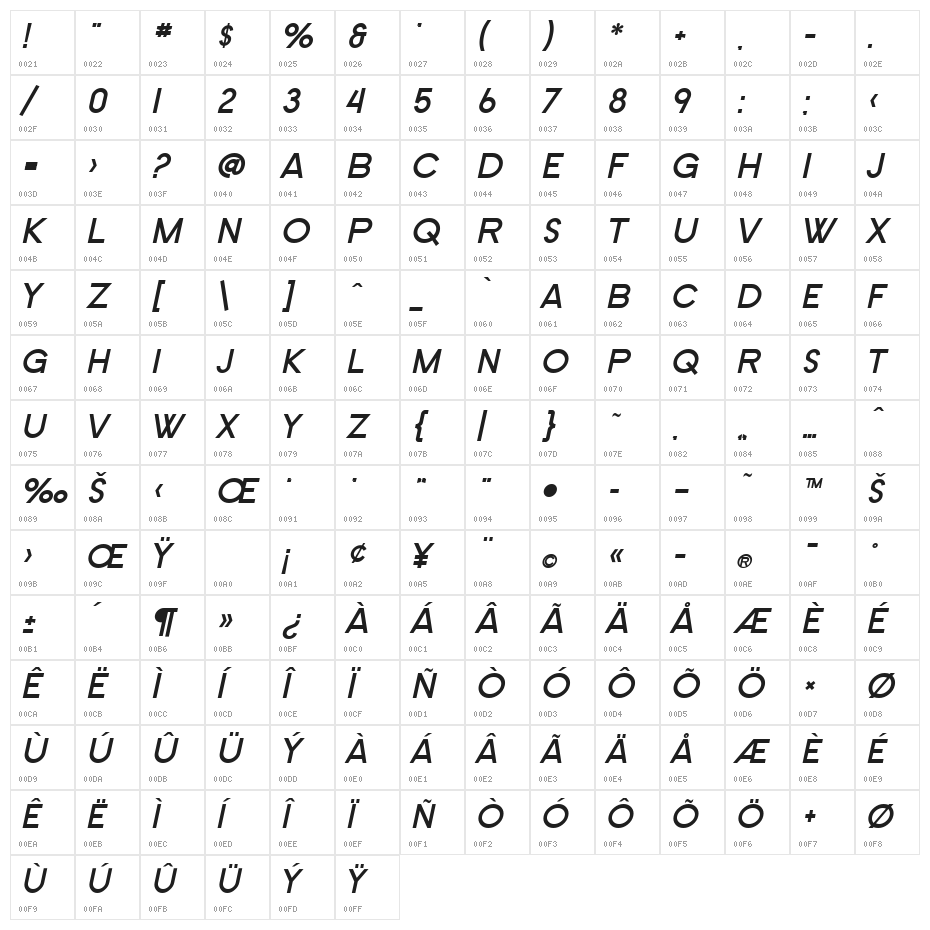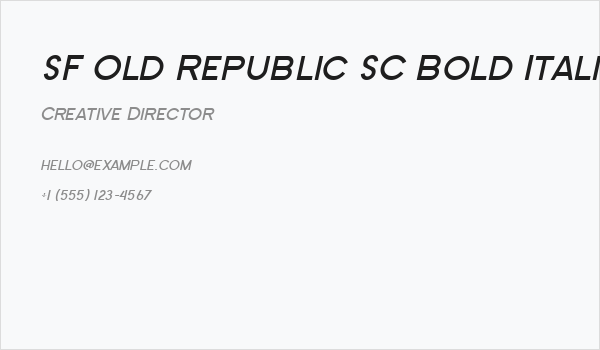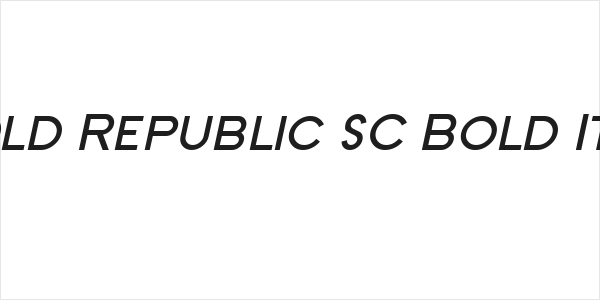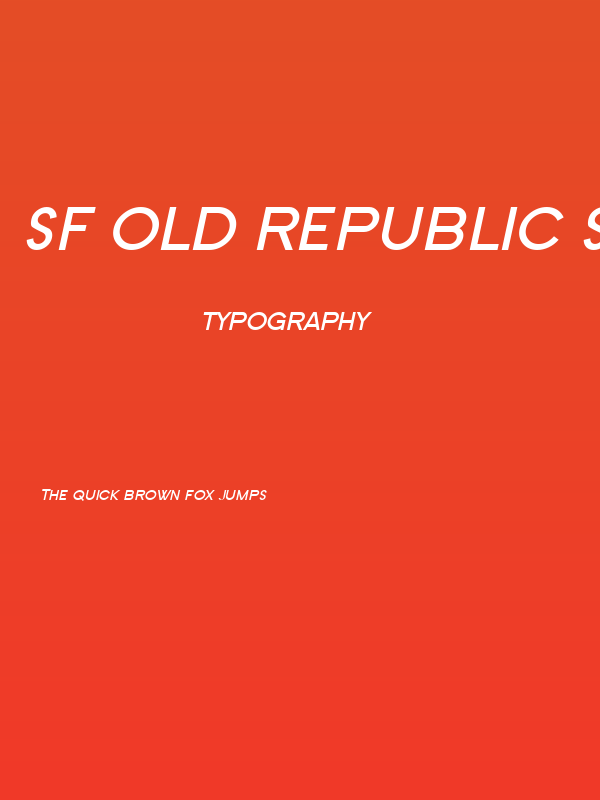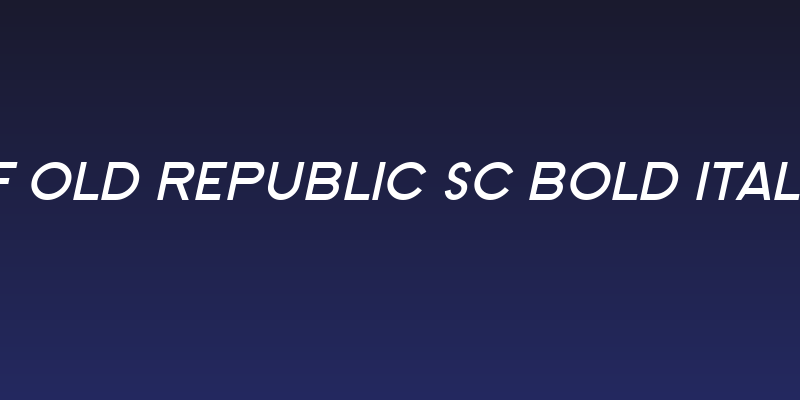
SF Old Republic SC Bold Italic Font
SF Old Republic SC Bold Italic Description
This font features a bold and italic style, characterized by its strong and dynamic slant. The letters are evenly spaced with a slight forward tilt, giving it a sense of motion and urgency. The strokes are consistent in thickness, providing a uniform appearance across all characters. The design is clean and modern, making it suitable for various applications where a bold statement is needed. Its geometric shapes and sharp edges contribute to a contemporary look, while the italicization adds a touch of elegance and sophistication.
| Proposed Projects | Ideal for branding, headlines, posters, and any design requiring a bold, modern aesthetic. |